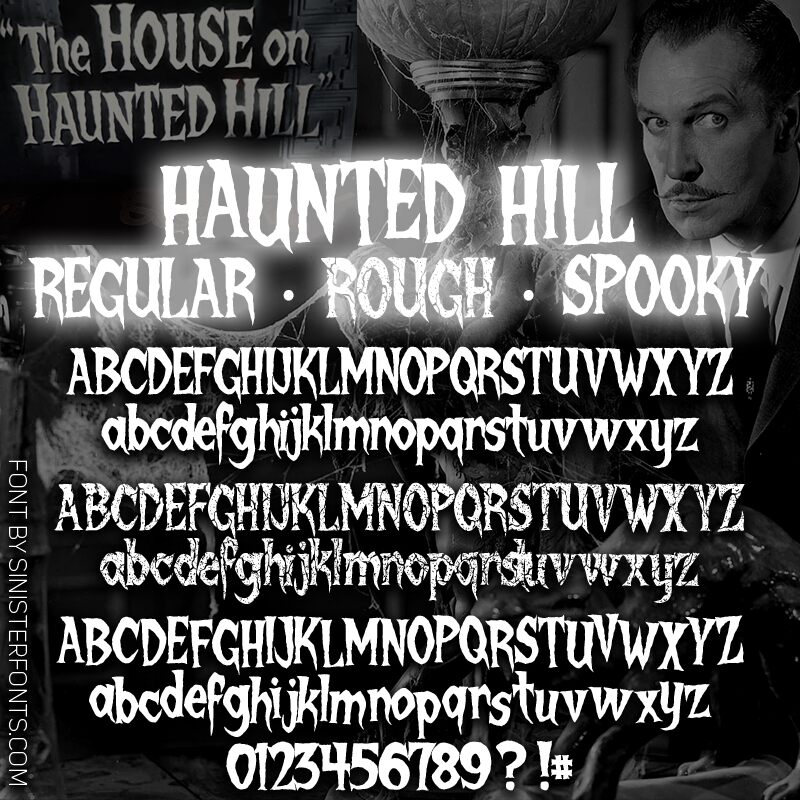
Haunted Hill Rough Rough
Haunted Hill Rough Rough font by Sinister Fonts is a free bold distressed horror font from the Haunted Hill family. Built for chills, it shreds each letter with splintered edges, worm-eaten interiors, and drippy ink blots that feel damp and grainy. The rhythm is jagged yet readable, so headlines hit hard while the texture does the scare-work.
Using Haunted Hill Rough Rough, you can nail Halloween posters, haunted house flyers, horror podcast covers, escape room signage, spooky game logos, and seasonal merch. The chunky forms thrive at large sizes with a touch of extra tracking. Pair this free font with a clean condensed sans for body copy to let the roughness breathe and the message stay sharp.
Haunted Hill Font Set by Chad Savage